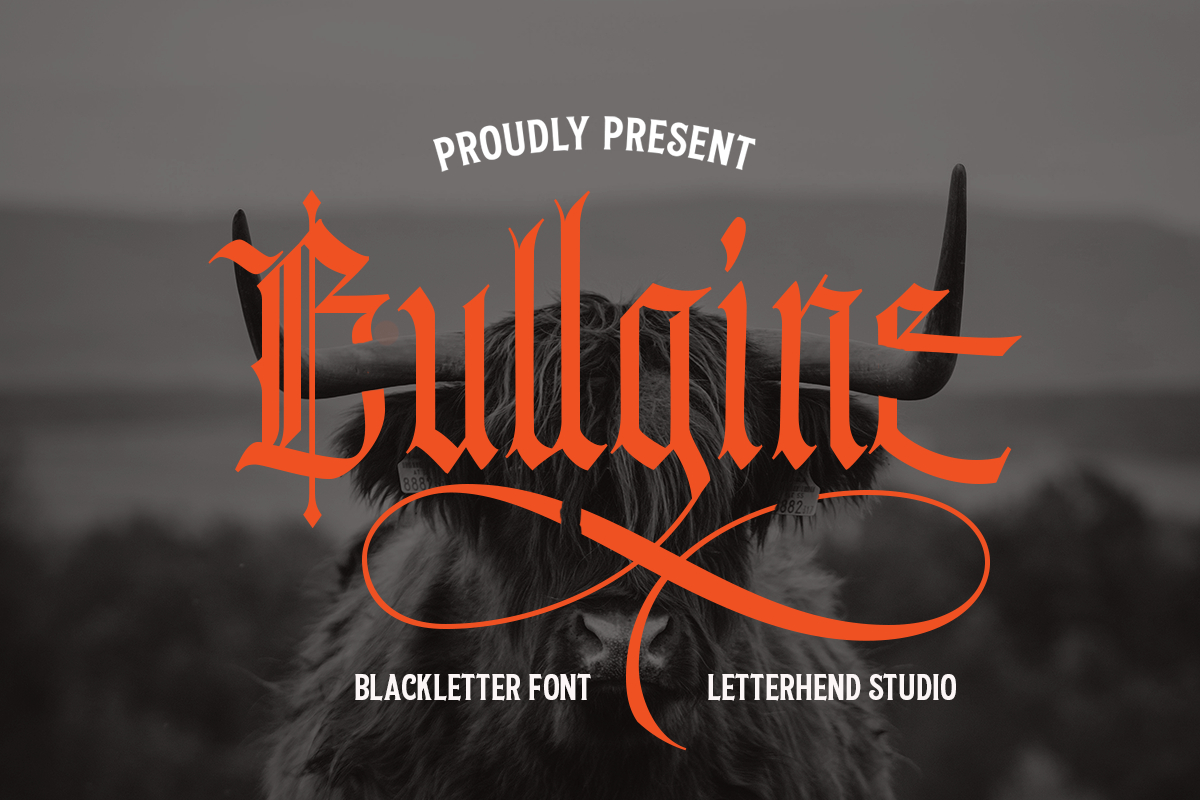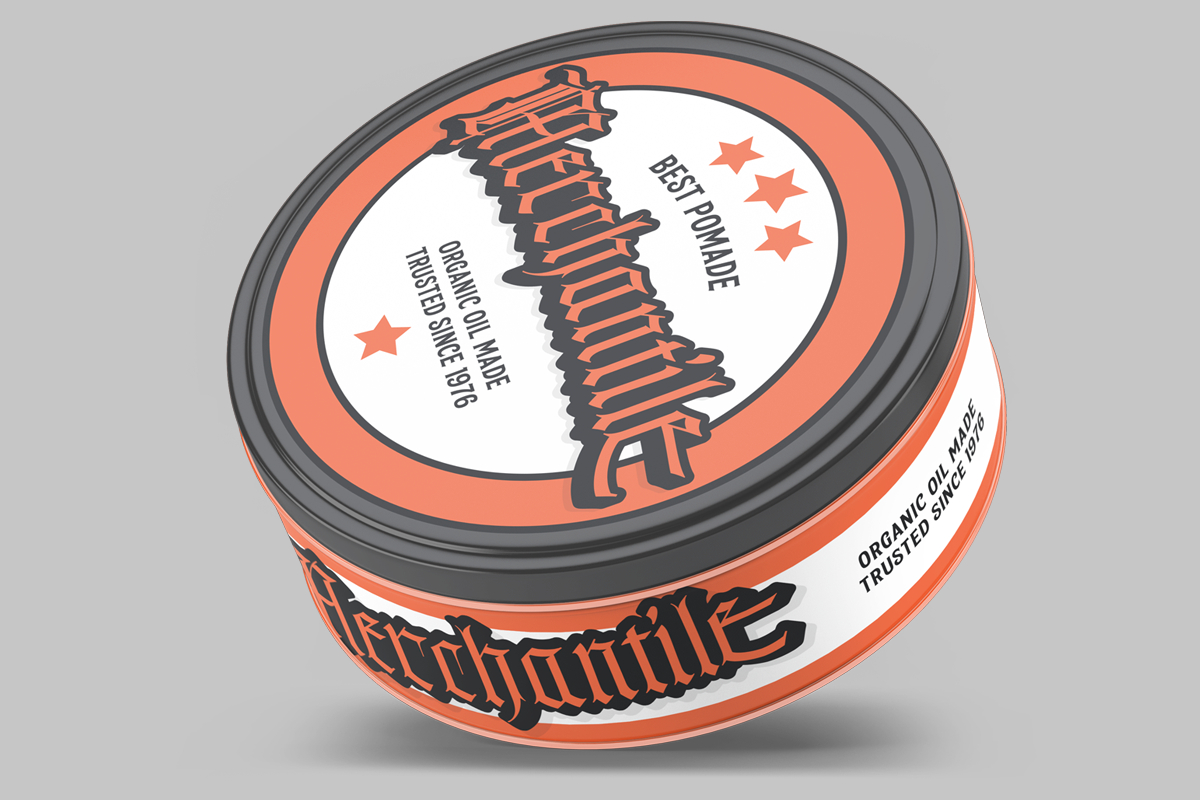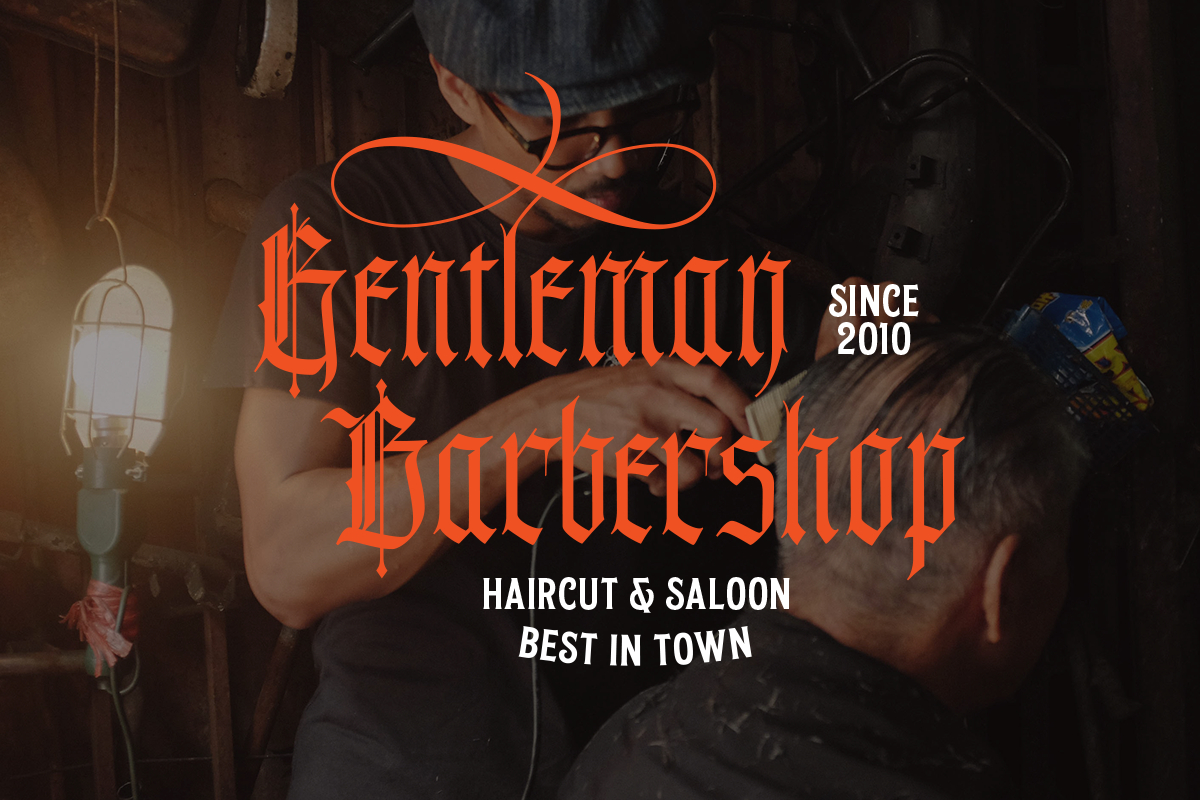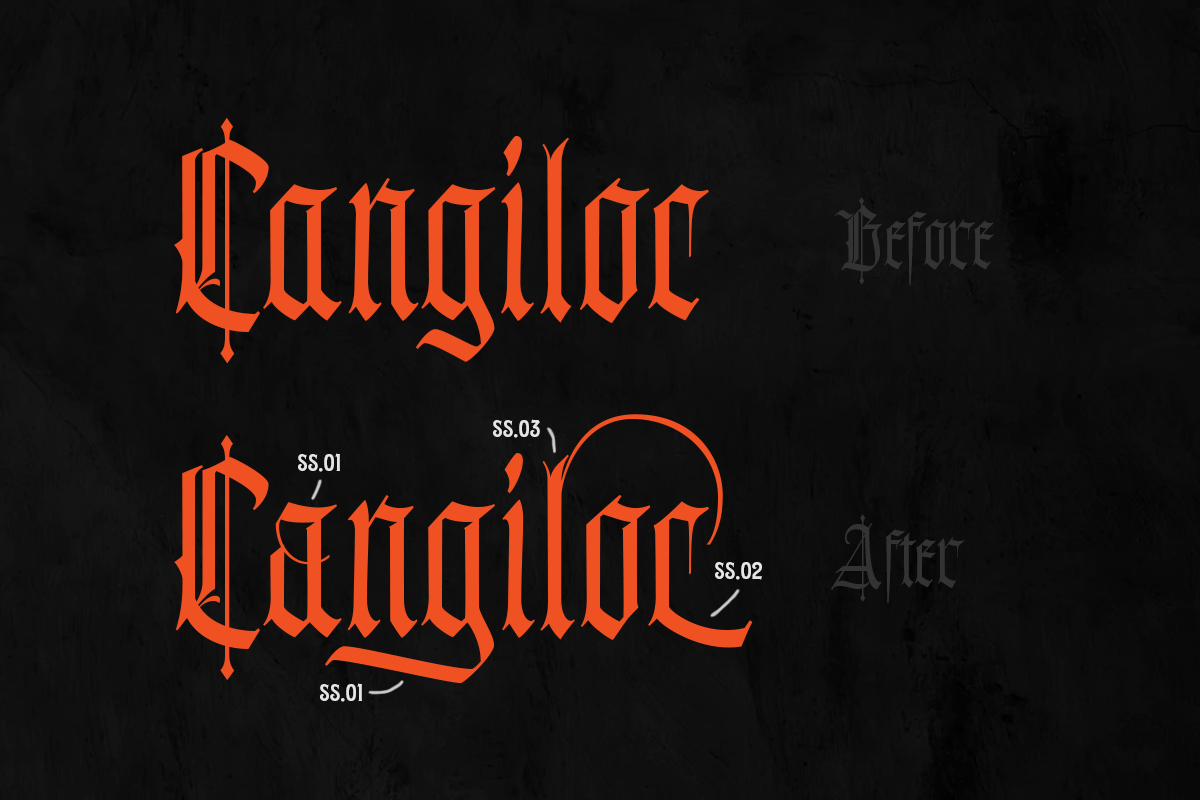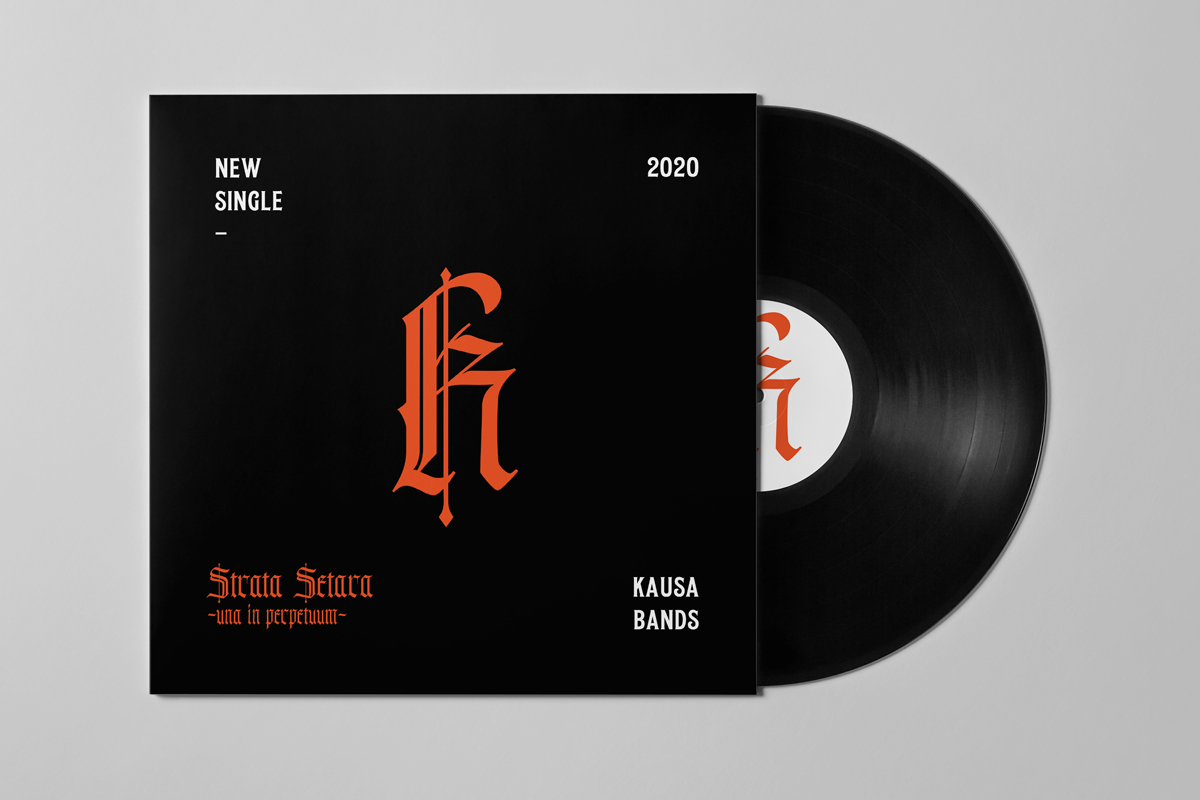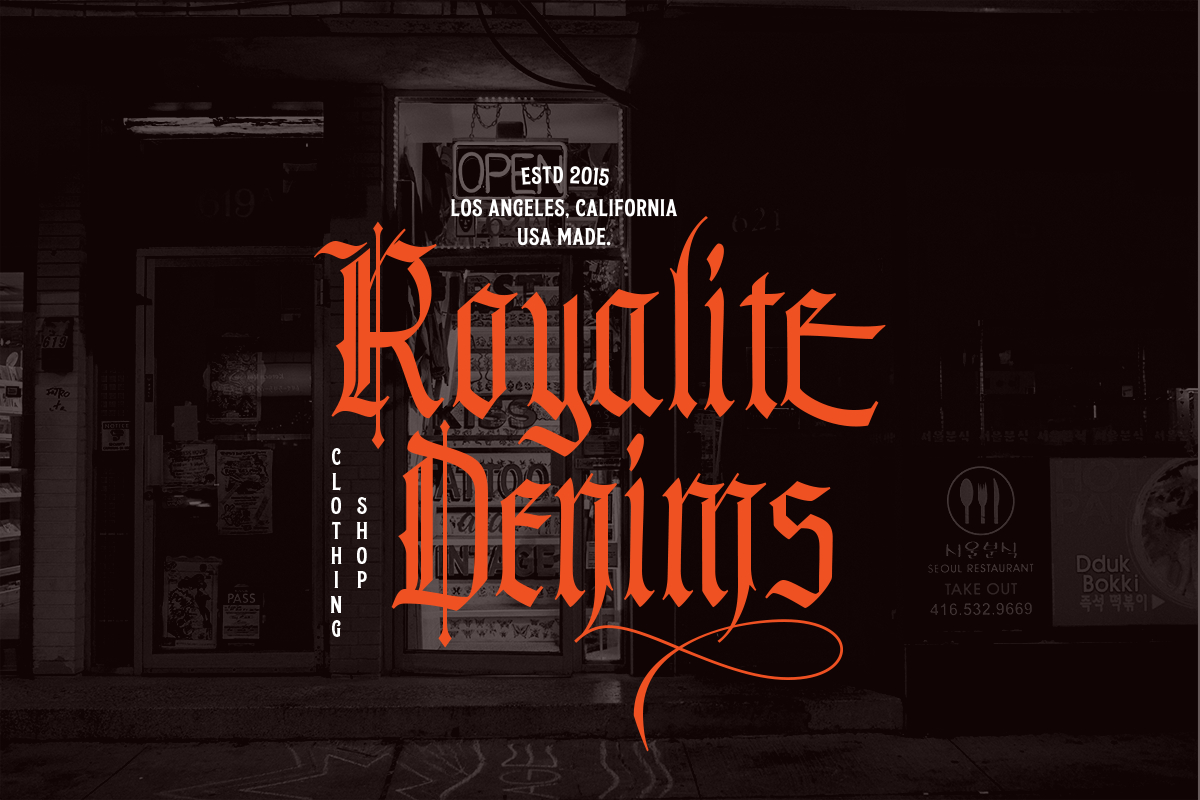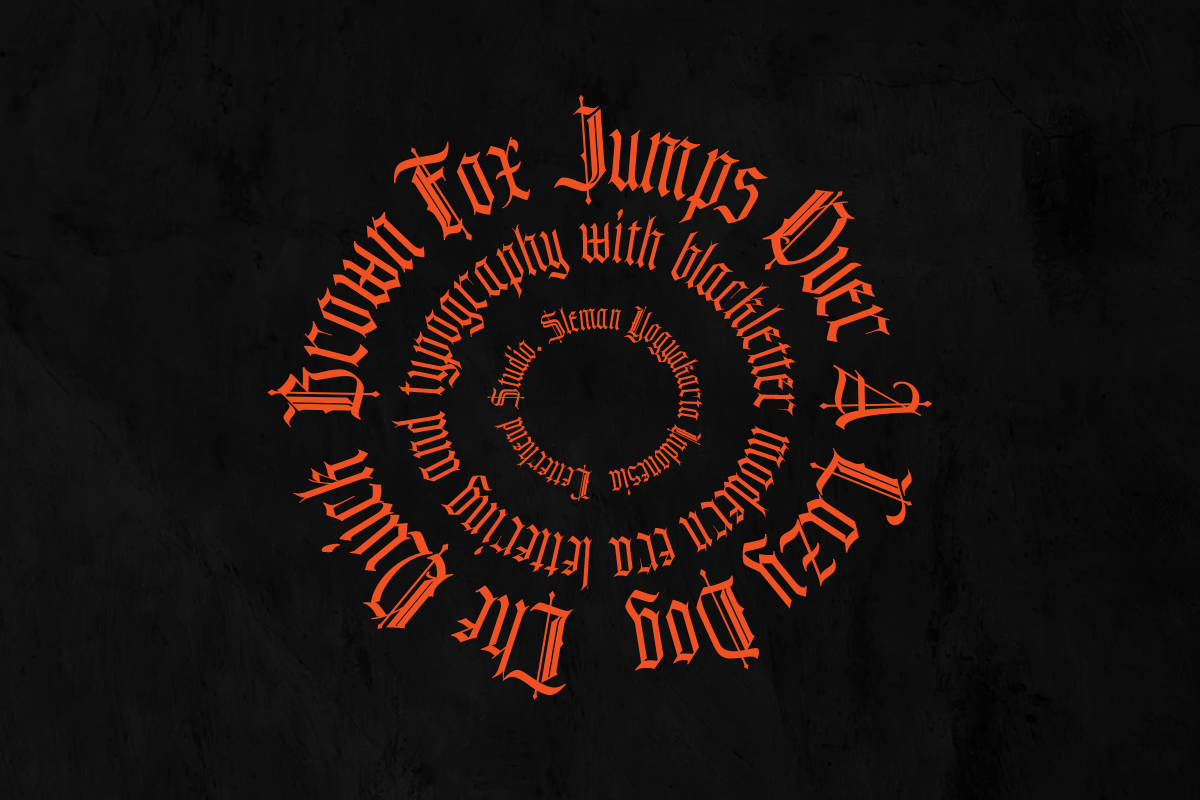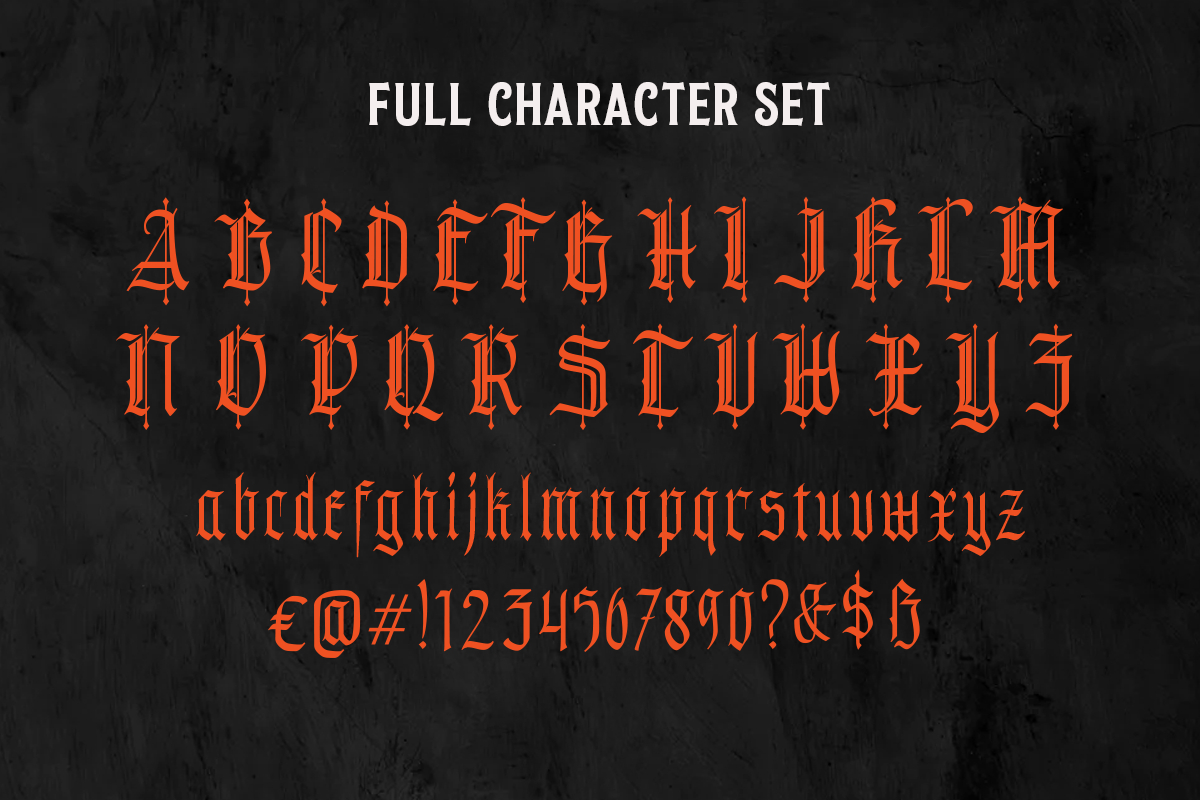
Bullgine Font
About Bullgine Font
Bullgine is an elegant and authentic blackletter. Add this unique font to each of your creative ideas and notice how it makes them stand out!